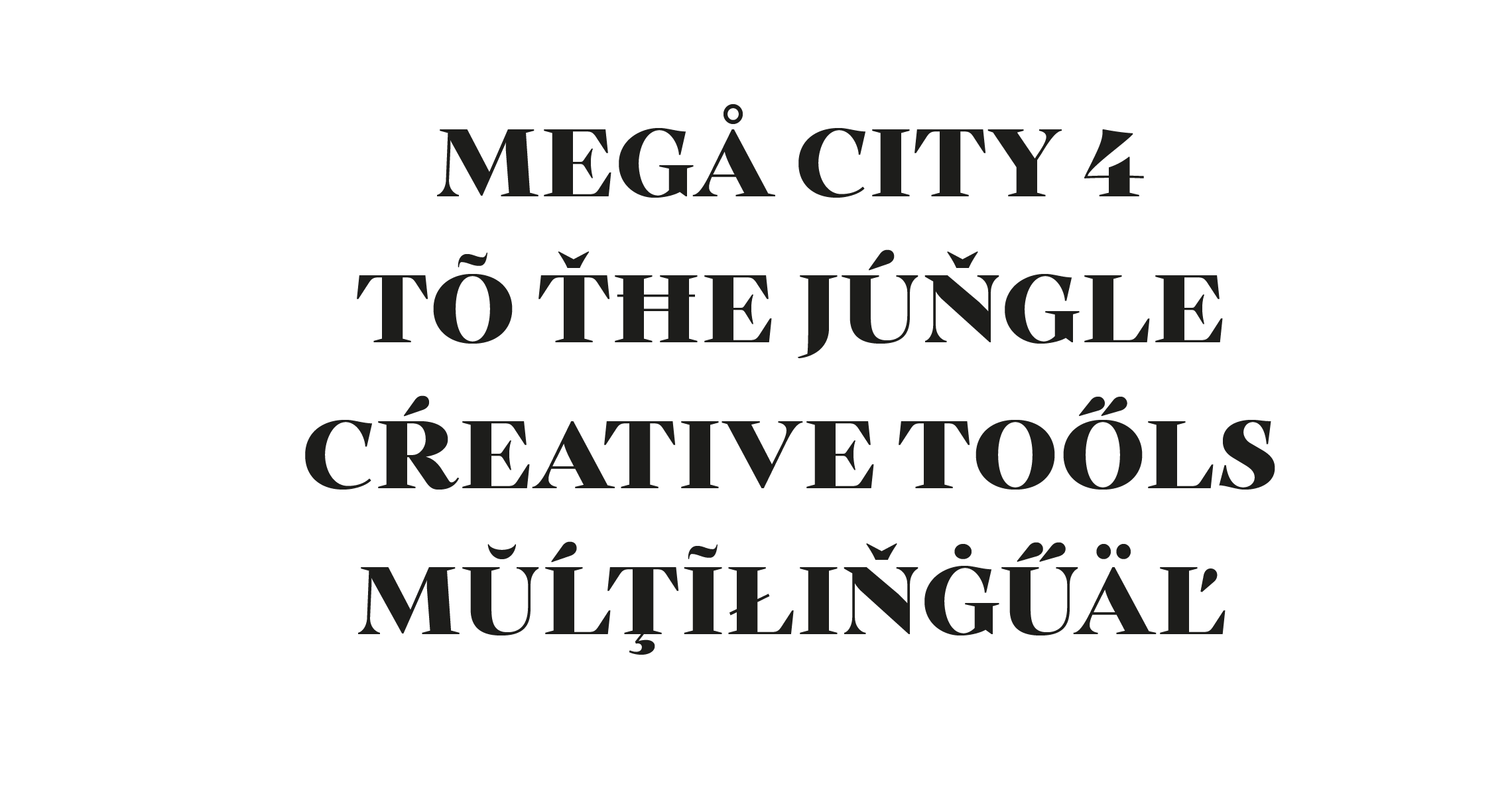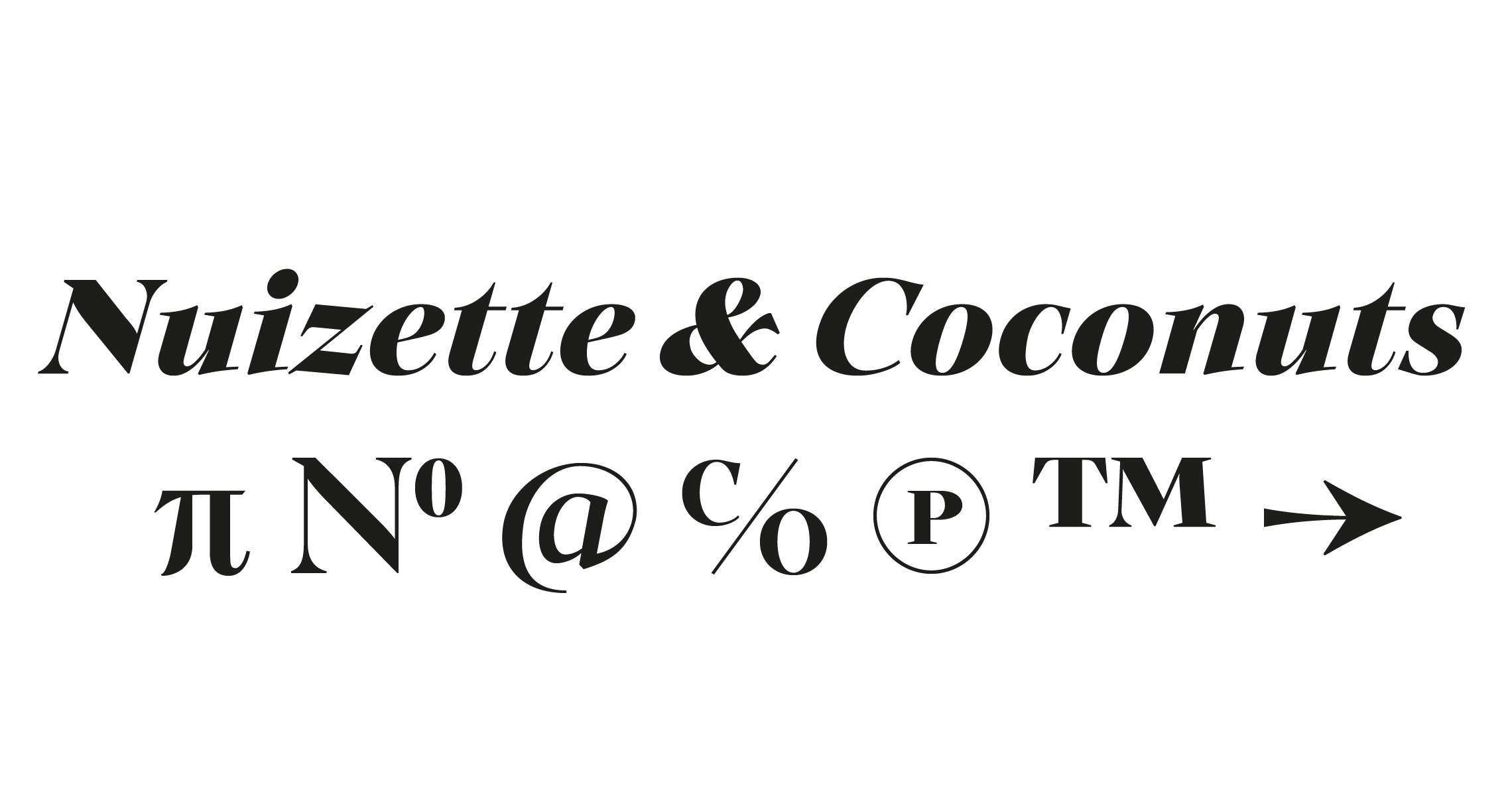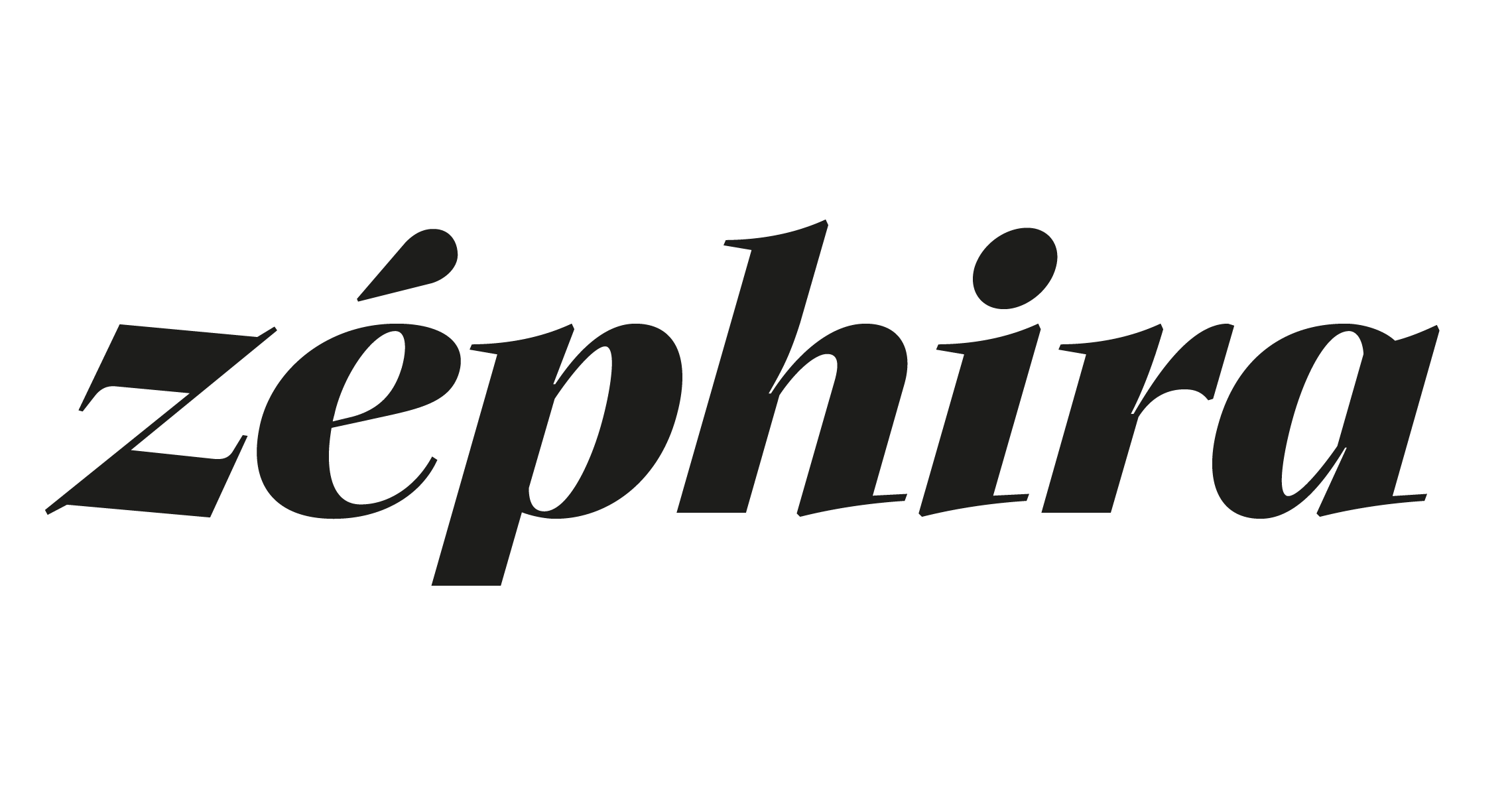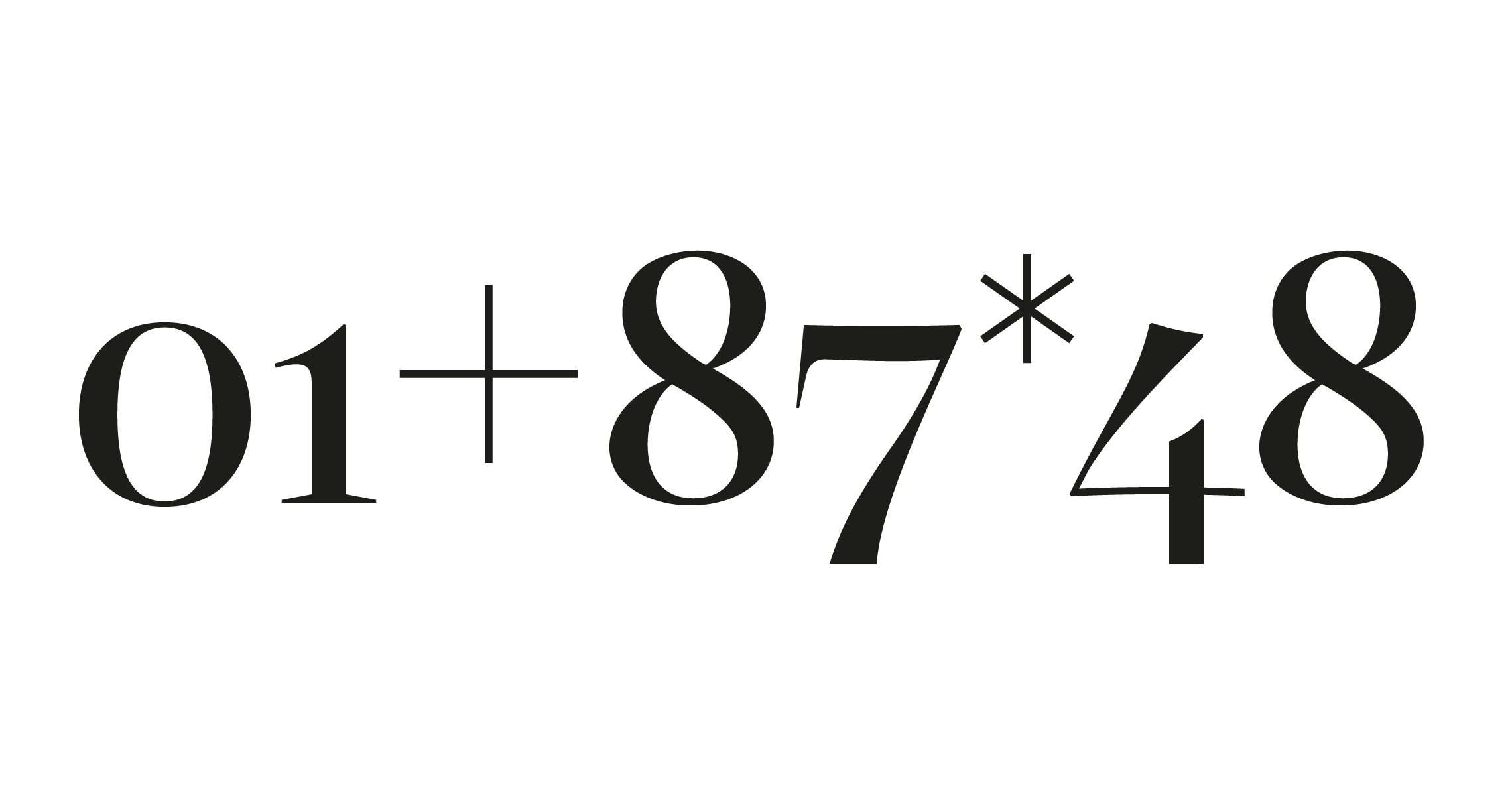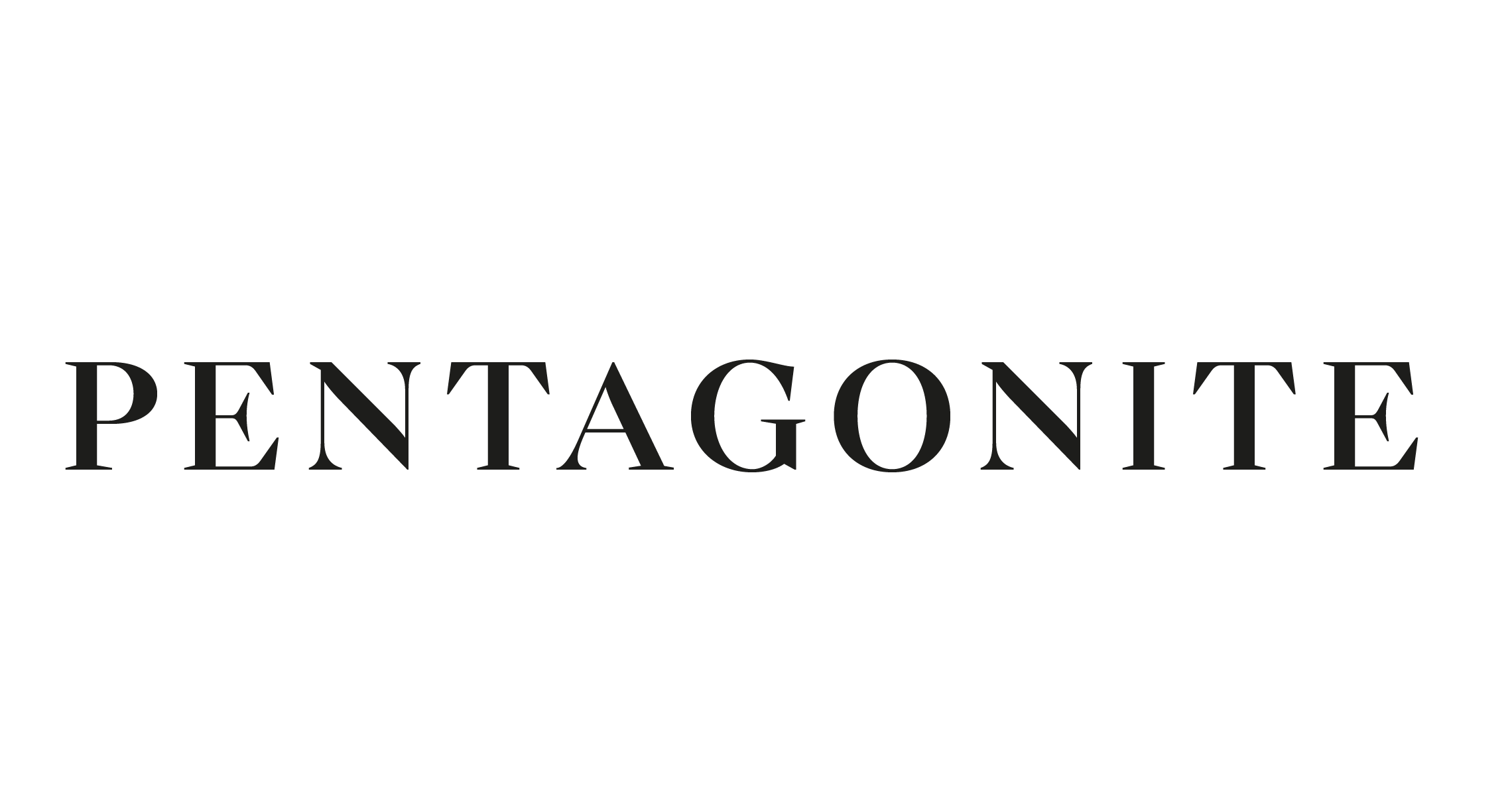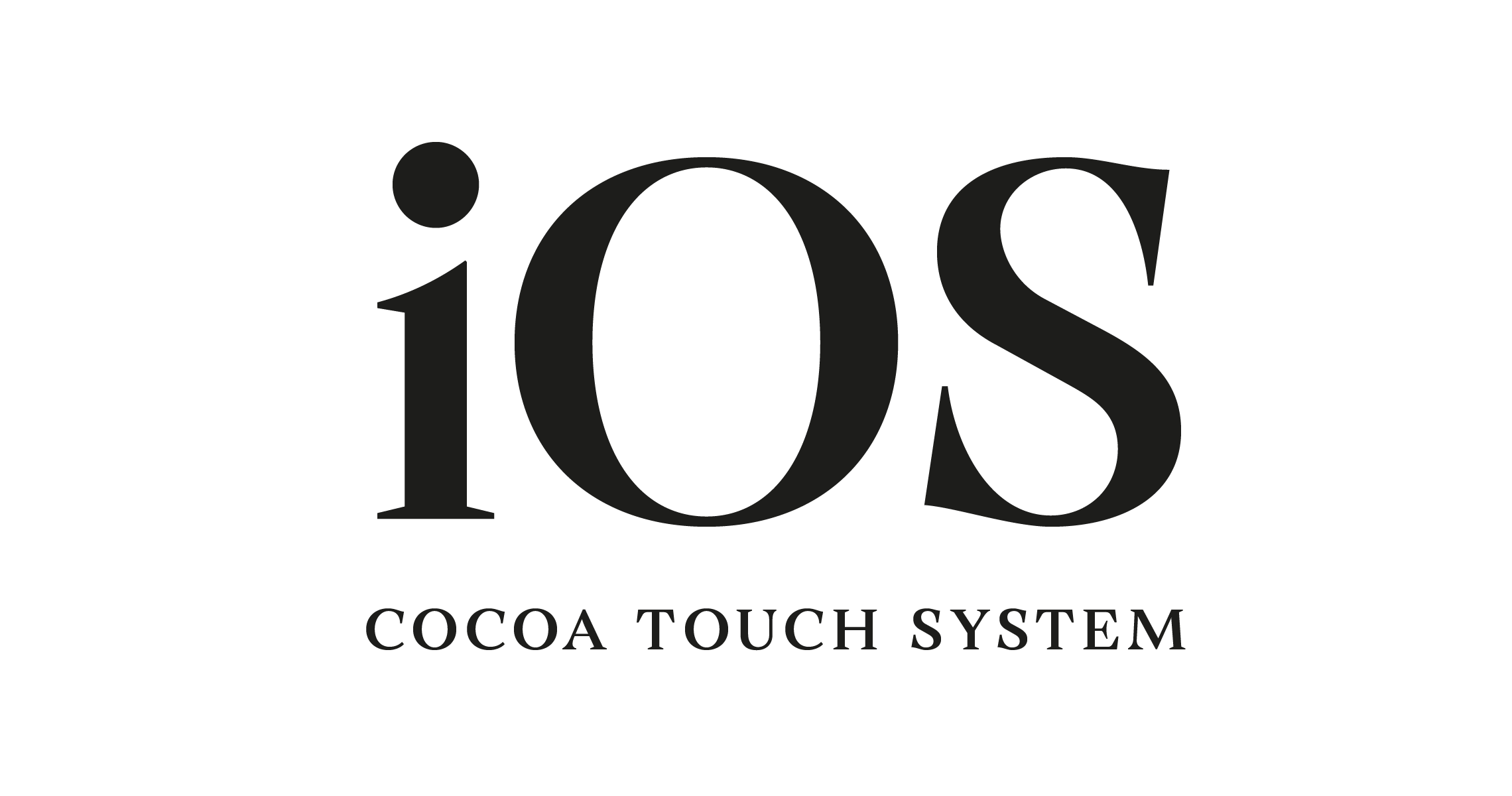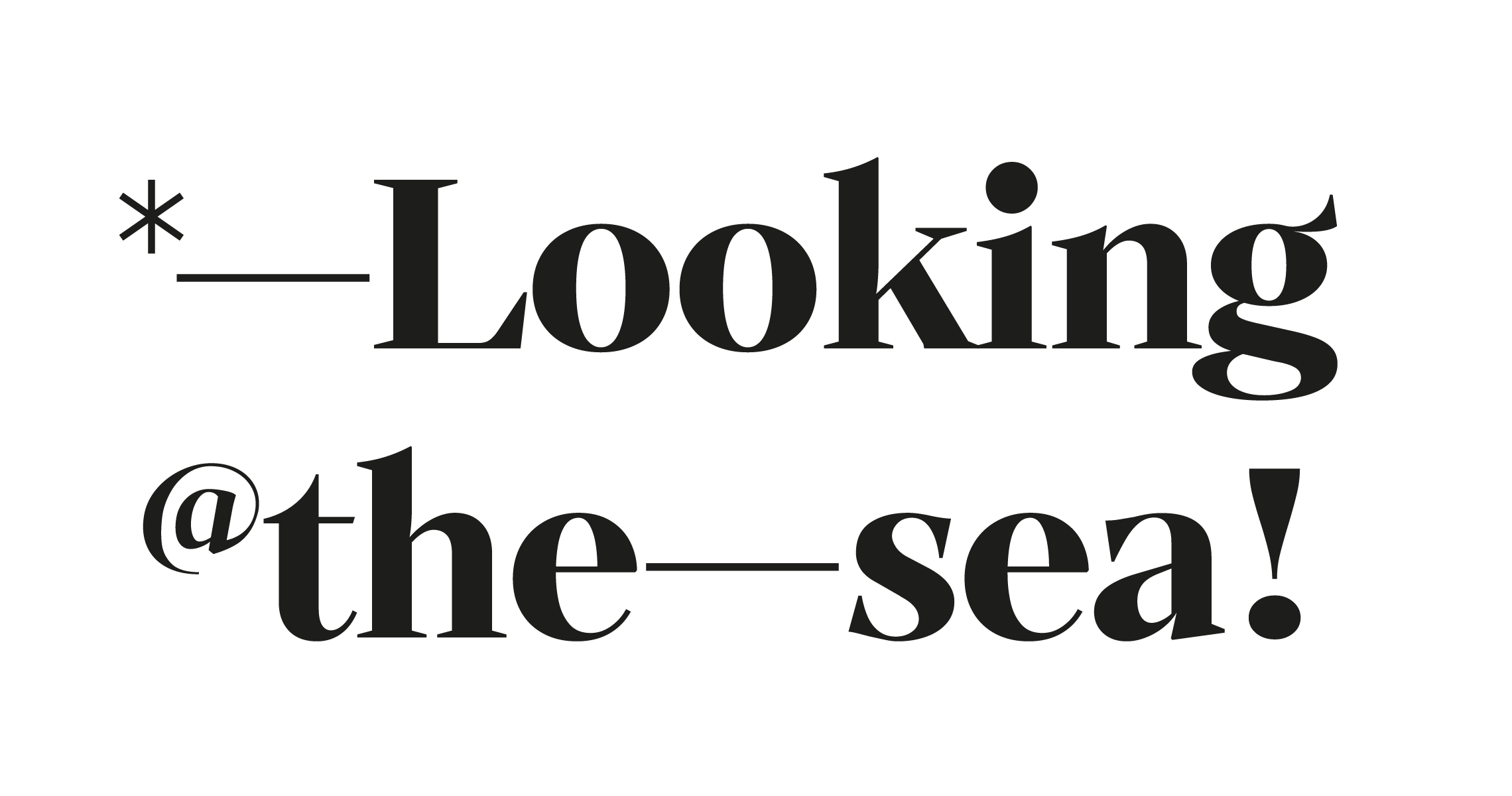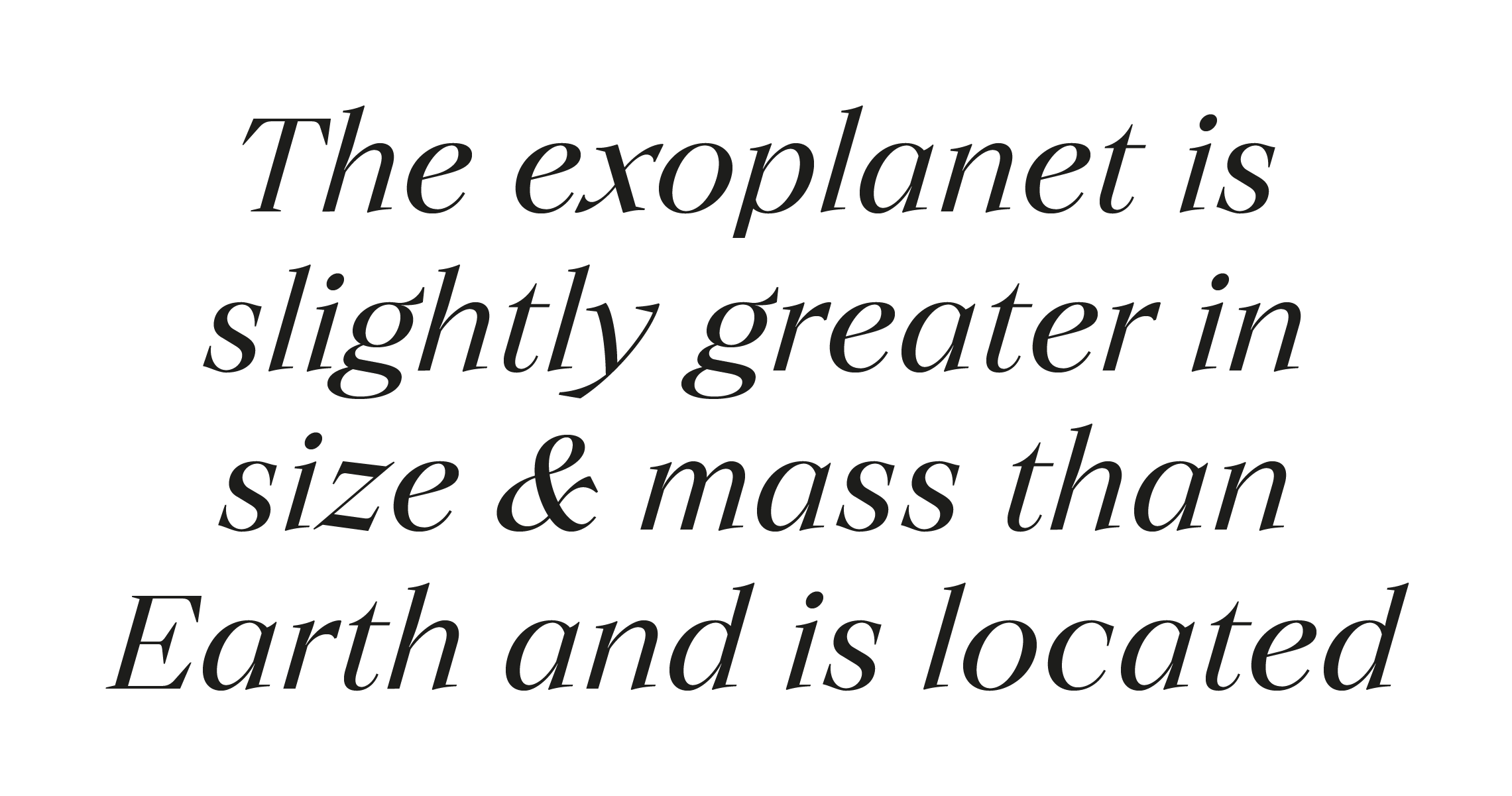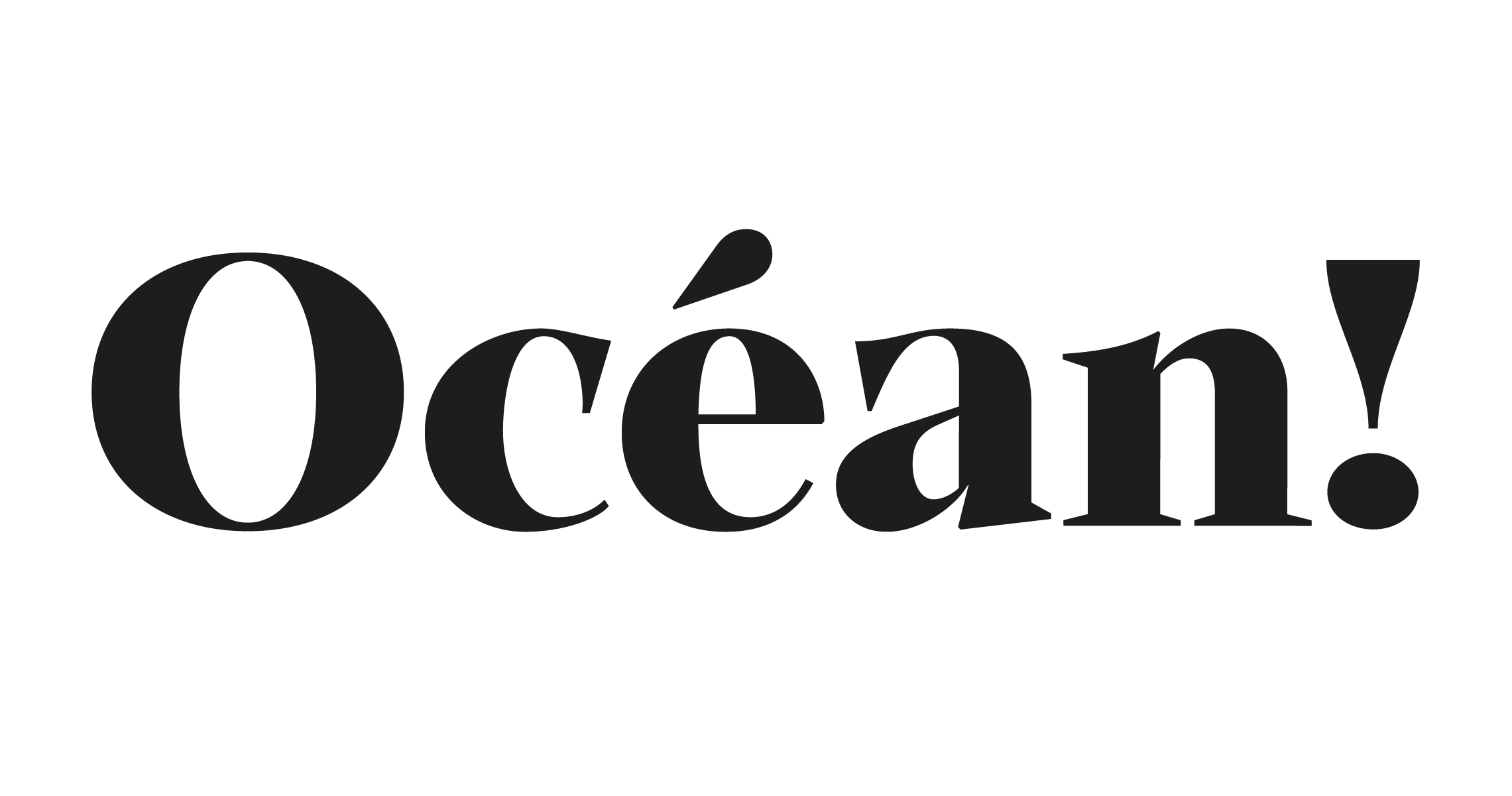
Ozana Pro Display
Waterfront
A serif font family full of duality
Ozana Pro is a bracketed serif font family adapted to the professional requirements of graphic designers, web designers and mobile app developers. Comprised of 24 styles including 12 styles designed especially for headlines and 12 styles for text and long paragraph design, Ozana Pro is a very versatile family of fonts that can be used in many projects such as editorial design, branding or corporate identity creation, design of posters or logos, the creation of websites or the development of mobile applications.
This serif font family, with a resolutely modern aspect, also hides a unique typographic design since it has 2 distinct styles (Roman and Display) which have 2 different optical sizes in order to graphically differentiate the appearance of titles, subtitles and long paragraphs.
With this design of glyphs differentiated by the optical size according to the styles, the titles have a very graphic aspect while the long texts have a more classic design in order to keep an optimal readability in all cases.
Ozana Pro is also equipped with powerful OpenType features such as case sensitivity, true small caps, ligatures, tabular figures, old styles figures, numbers circled. Ozana Pro is also available as a variable font family.